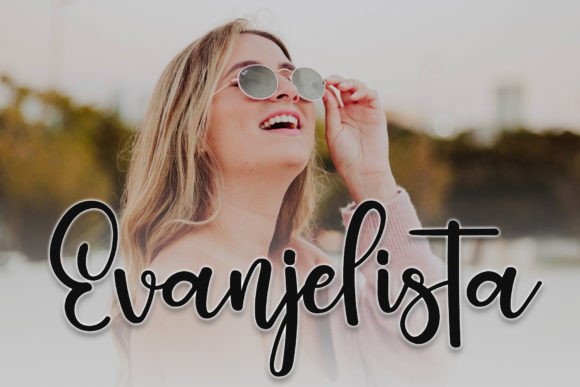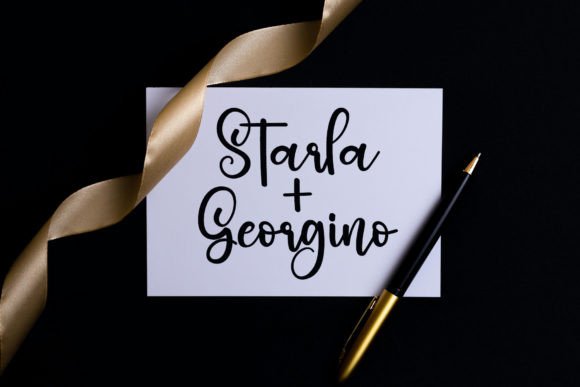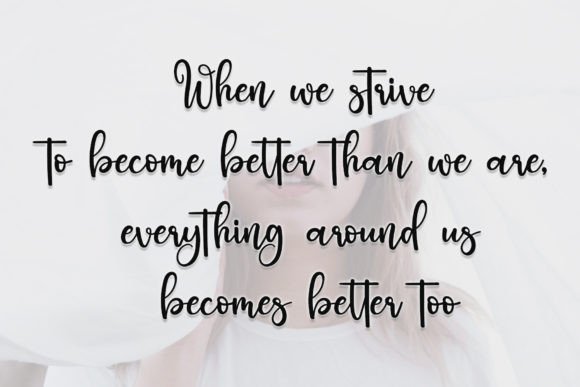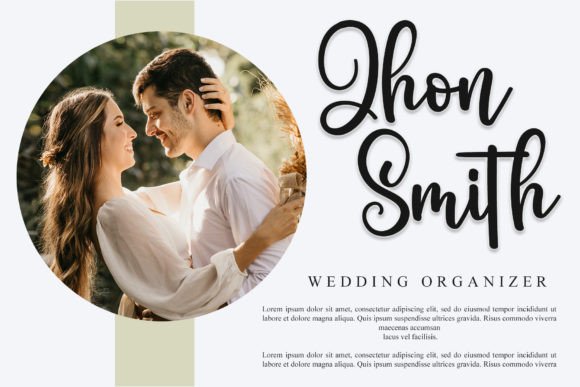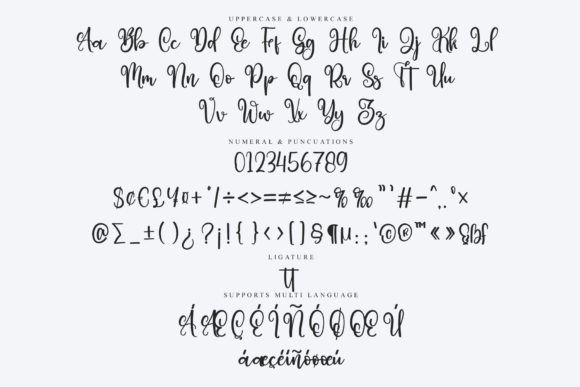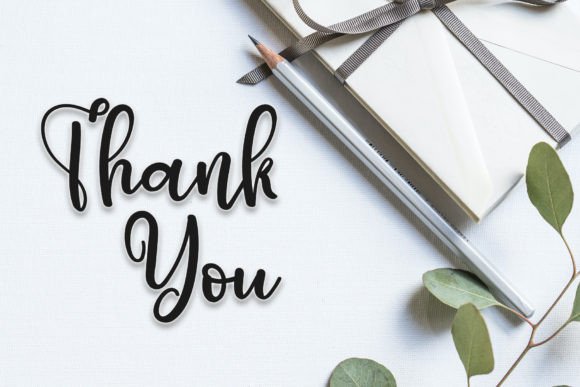
Introducing Actually Font: Elevate Your Designs with Timeless Elegance
In the world of typography, few fonts manage to strike a balance between classic sophistication and modern flair. Actually Font is one such gem that has captured the hearts of designers and crafters alike. This stylish handwritten font boasts a contemporary atmosphere, impeccable form, and a touch of timeless classic calligraphy, making it the perfect addition to your design arsenal.
The Inspiration Behind Actually Font
Actually Font draws inspiration from the elegance of traditional calligraphy, yet infuses it with a modern twist. The result is a font that exudes sophistication and poise, perfect for projects that demand a high level of refinement. The creators of Actually Font aimed to craft a typeface that not only pays homage to the classics but also meets the demands of contemporary design.
Key Features of Actually Font
- Balanced and Varied: Actually Font is designed to offer a balanced and varied look, ensuring that your text remains engaging and easy to read. The characters are meticulously crafted to provide a harmonious flow, making it ideal for both headings and body text.
- Contemporary Atmosphere: With its clean lines and modern aesthetic, Actually Font brings a fresh feel to your designs. It’s perfect for designers looking to add a touch of sophistication without resorting to overly traditional typefaces.
- Impeccable Form: The font’s impeccable form is a testament to its high-quality design. Each letter is carefully shaped to contribute to the overall elegance of the font, ensuring that your projects stand out for all the right reasons.
- Versatility: One of the standout features of Actually Font is its versatility. Whether you’re working on a branding project, crafting a website, or designing marketing materials, this font can adapt to your needs, adding a touch of class to any design.
Why Choose Actually Font?
For designers and crafters, the choice of font can make or break a project. Actually Font offers several compelling reasons to make it your go-to typeface:
- Enhances Beauty: As described, Actually Font is designed to enhance the beauty of your projects. Its elegant lines and balanced form ensure that your designs are not just visually appealing but also convey a sense of sophistication.
- Easy to Read: Despite its elegant appearance, Actually Font remains highly legible, making it suitable for both print and digital media.
- Unique yet Familiar: It strikes a perfect balance between being unique and familiar. This ensures that your designs stand out without confusing your audience.
Using Actually Font in Your Projects
Incorporating Actually Font into your projects is straightforward. Here are a few ideas to get you started:
- Branding: Use Actually Font for your brand’s logo, packaging, or marketing materials to add a touch of elegance.
- Web Design: Enhance your website’s typography with Actually Font, making it more engaging and sophisticated.
- Stationery: Elevate your stationery designs, such as business cards, letterheads, and invoices, with the font’s classic yet modern appeal.
Actually Font is more than just a typeface; it’s a design statement. With its stylish handwritten appearance, contemporary vibe, and impeccable form, it offers a unique blend of classic elegance and modern sophistication. Whether you’re a designer looking to elevate your projects or a crafter seeking the perfect font for your creations, Actually Font is an excellent choice. Its versatility, readability, and beauty make it a valuable addition to any designer’s toolkit.